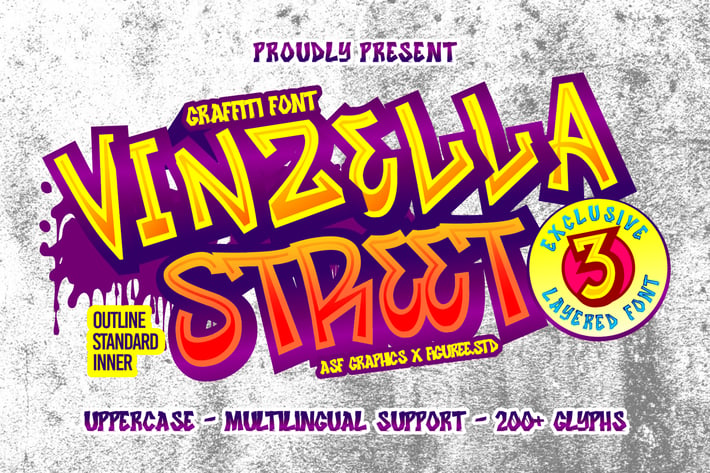
Vinzella Street - Layered Graffiti Font
Vinzella Street is a cutting-edge layered graffiti font that brings an innovative and multi-dimensional approach to street art typography. This font allows you to stack different layers, adding depth and dynamism to your designs. Whether you're creating urban-themed posters, flyers, or digital art, Vinzella Street offers a creative canvas to make your text pop with urban style. It's a versatile choice for artists and designers seeking to add a fresh, contemporary edge to their projects.